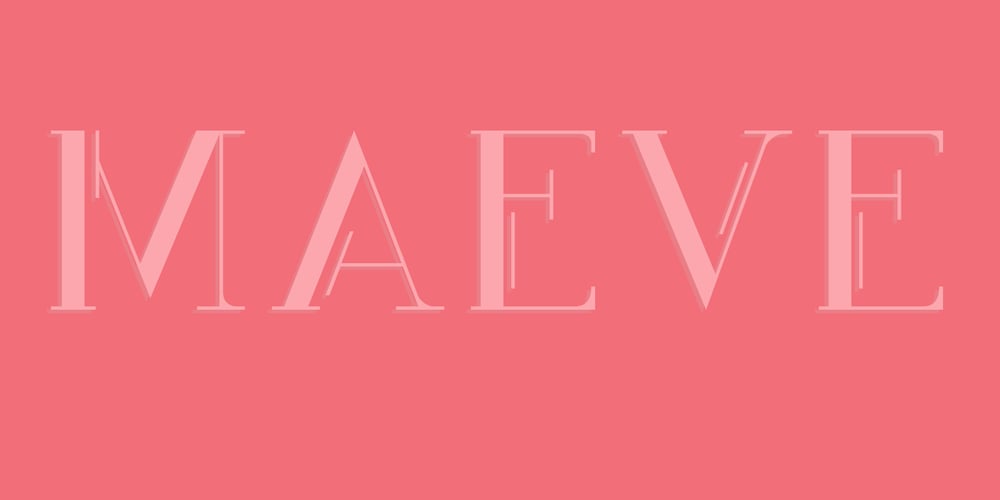
Maeve
Maeve font
Maeve Font Family was designed by Fiona Clarke and published by Bonez Designz. Maeve contains 1 styles and family package options. A didone style display typeface that draws inspiration from the fashion industry and also fuses vintage and contemporary. The font contains diacritic, Greek and Cyrillic. A specimen book for the typeface is available here